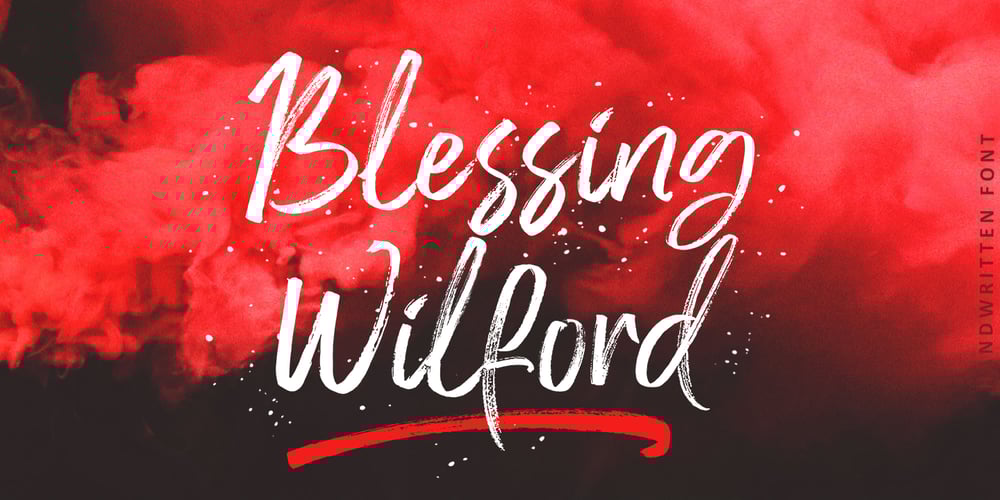
Blessing Wilford Brush
Blessing Wilford Brush font
Blessing Wilford Brush Font Family was designed by Muhammad Fajar and published by Lucky Type. Blessing Wilford Brush contains 2 styles and family package options. Introducing Blessing Wilford Brush Font, a modern, freestyle, free flowing, friendly and organic brush script.Can be used for a variety of purposes – Branding, Posters, Logos, Greeting Cards, Wedding Stationery and Quotes.The Blessing Wilford Brush Font also features over 20 unique swashes. Blessing Wilford Features:Basic Latin A-Z and a-z, number, symbol and multilingual support.To enable the OpenType Stylistic alternative, you need a program that supports OpenType features such as Adobe Illustrator CS, Adobe Indesign & CorelDraw X6-X7, Microsoft Word 2010 or later versions.There are additional ways to access alternatives/swashes, using the Character Map (Windows), Nexus Font (Windows), Font Book (Mac) or a software program such as PopChar (for Windows and Mac).